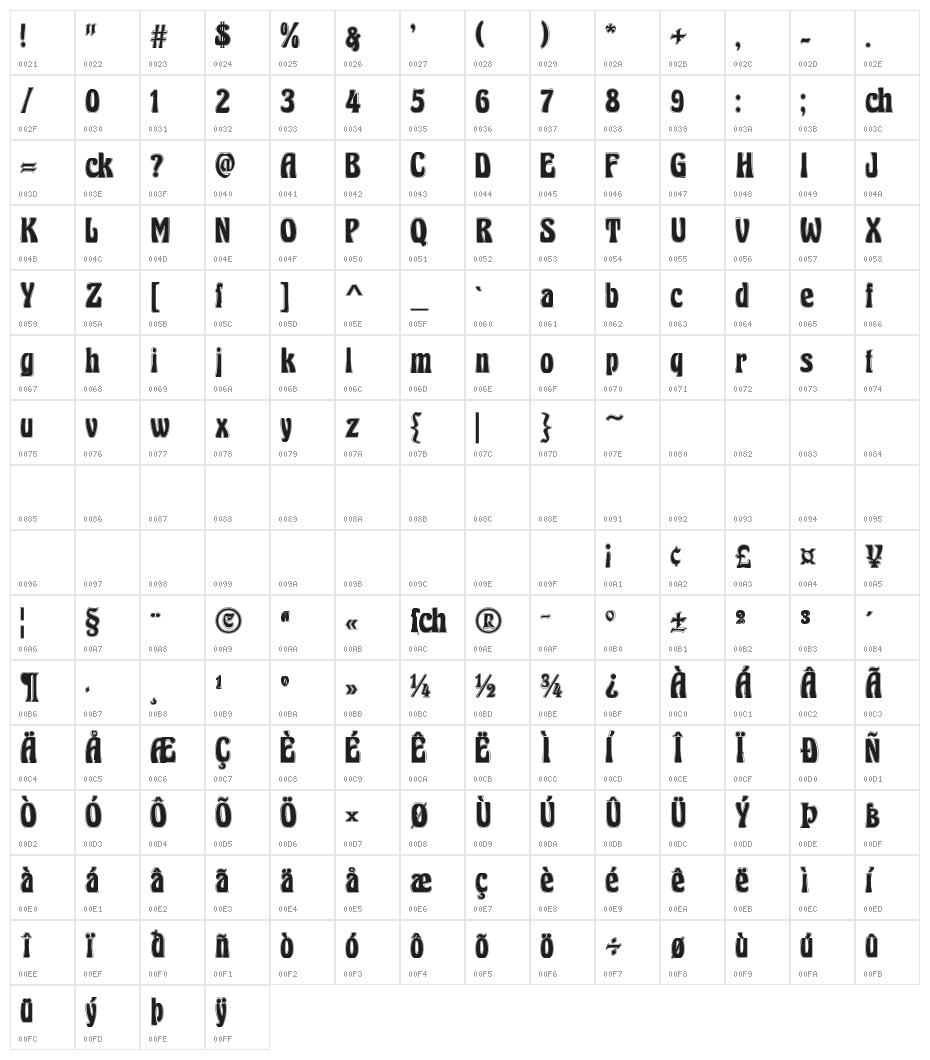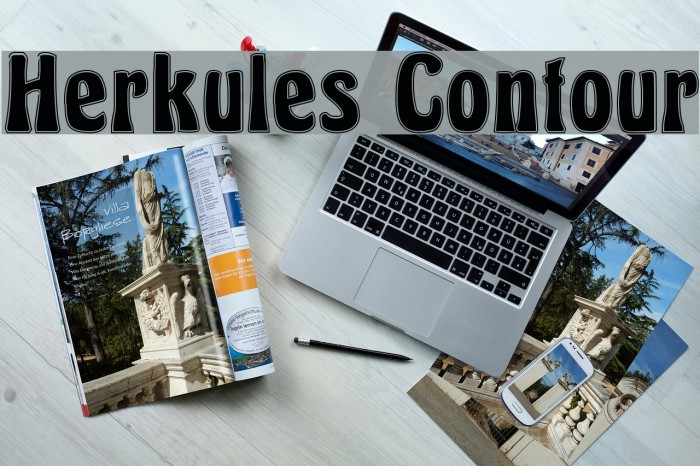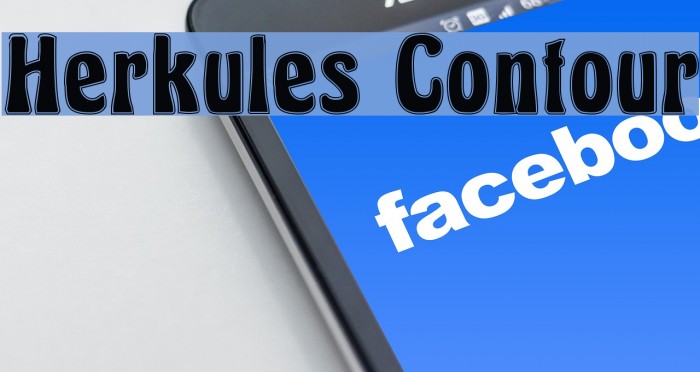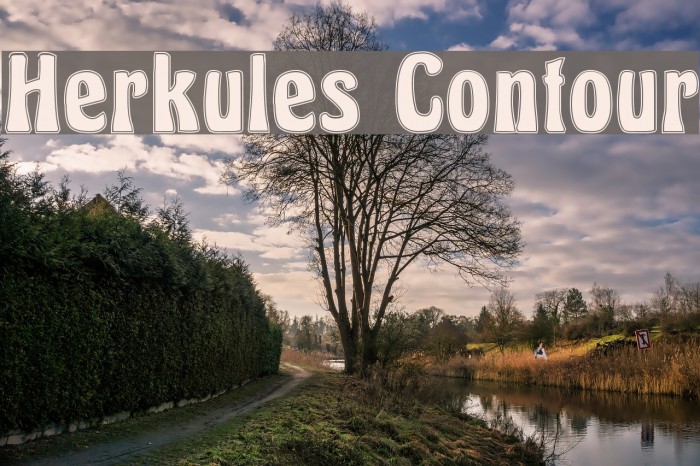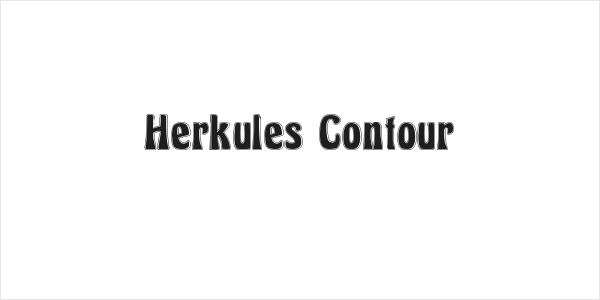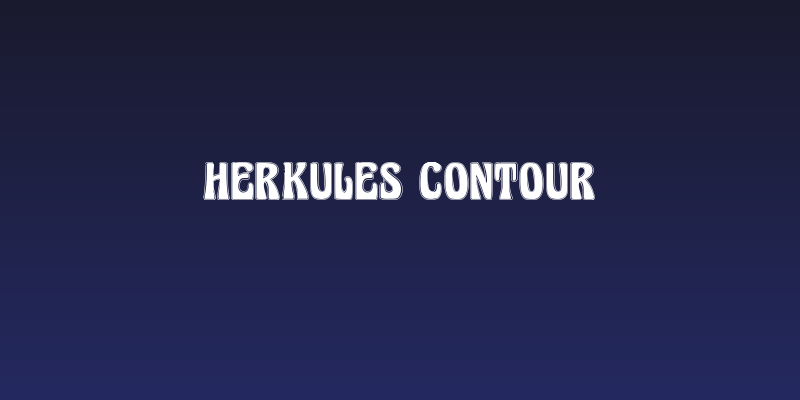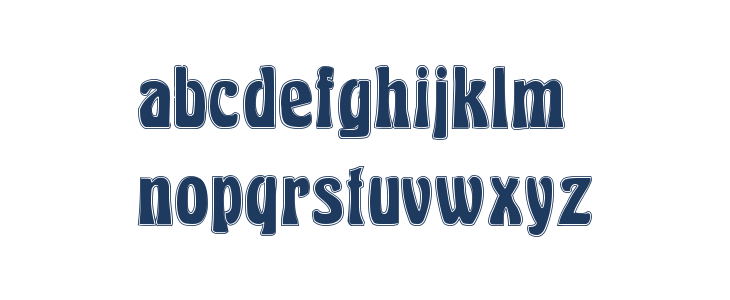
Herkules Contour Font
Herkules Contour Description
This font features a bold and striking contour design, characterized by thick outlines that create a strong visual impact. The uppercase and lowercase letters maintain a consistent style, with rounded edges and a playful yet assertive presence. The numbers and special characters follow the same aesthetic, ensuring a cohesive look across all elements. The font's unique contour effect adds depth and dimension, making it ideal for eye-catching designs. Its boldness and distinct style make it suitable for projects that require a standout typeface.
| Proposed Projects | Ideal for posters, logos, headlines, and any design requiring a bold, eye-catching typeface. |